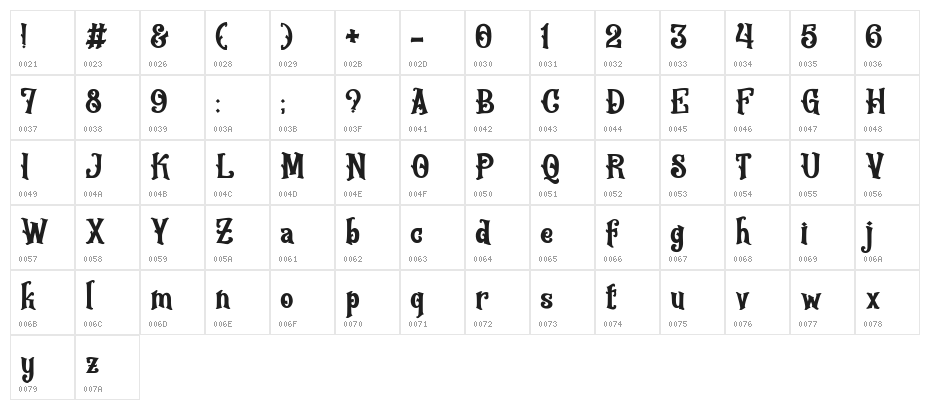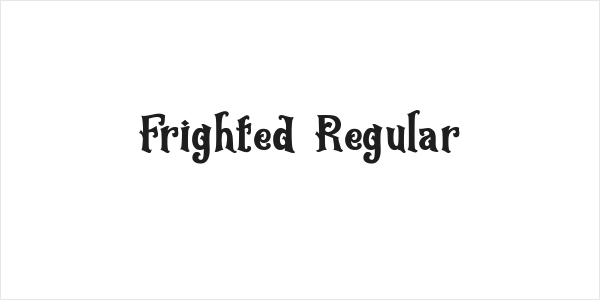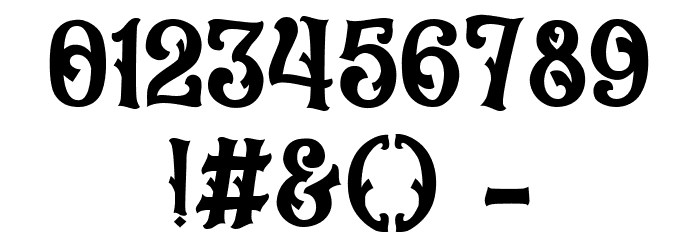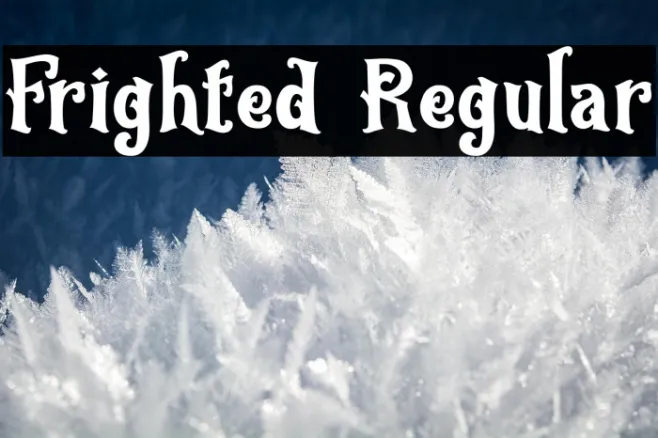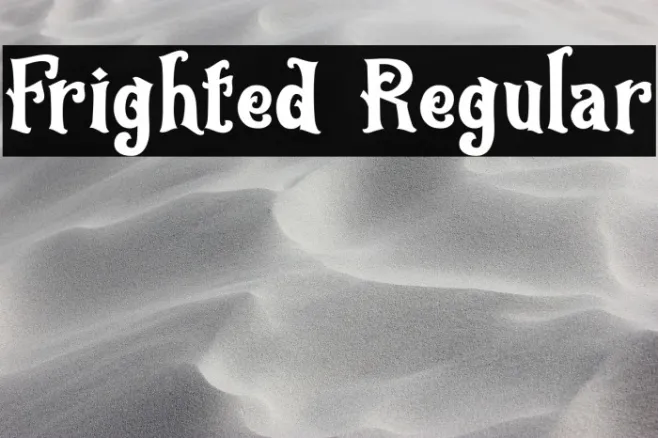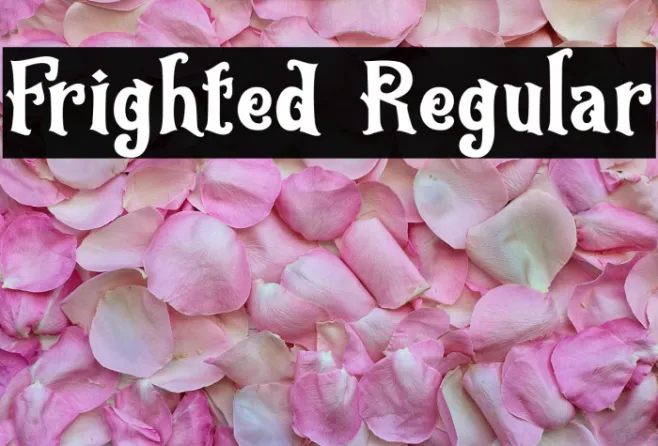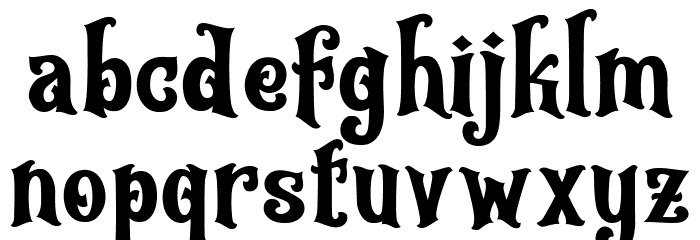
Frighted Regular Font
Frighted Regular Description
This font features a bold and dramatic style with a slightly spooky and whimsical appearance. The characters have a playful yet eerie vibe, with exaggerated curves and unique serifs that give it a distinctive look. The uppercase letters are particularly striking, with intricate detailing that adds to the font's decorative nature. The lowercase letters maintain the same whimsical style, ensuring consistency throughout. Numbers and special characters are designed to match the overall theme, making this font ideal for projects that require a touch of the unusual or mysterious.
| Use Case | Headlines, Posters, Themed Invitations |
| Proposed Projects | Ideal for Halloween-themed designs, horror movie posters, themed invitations, and any project requiring a touch of mystery or playfulness. |